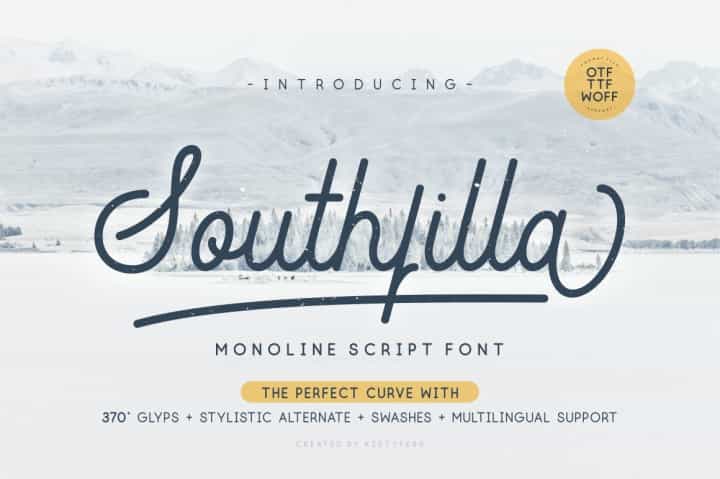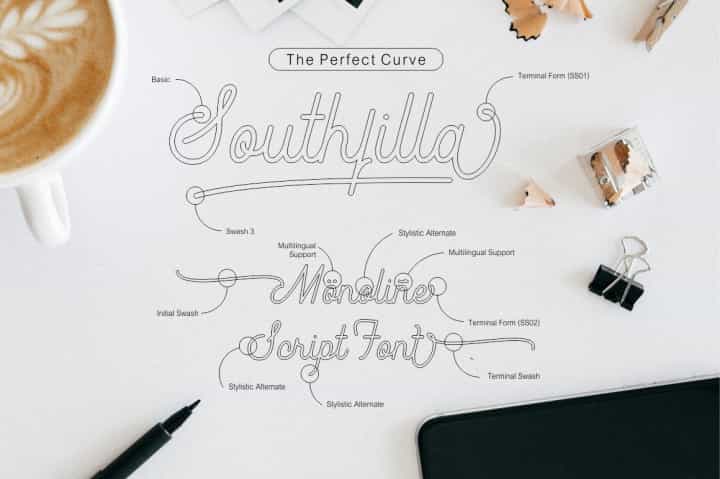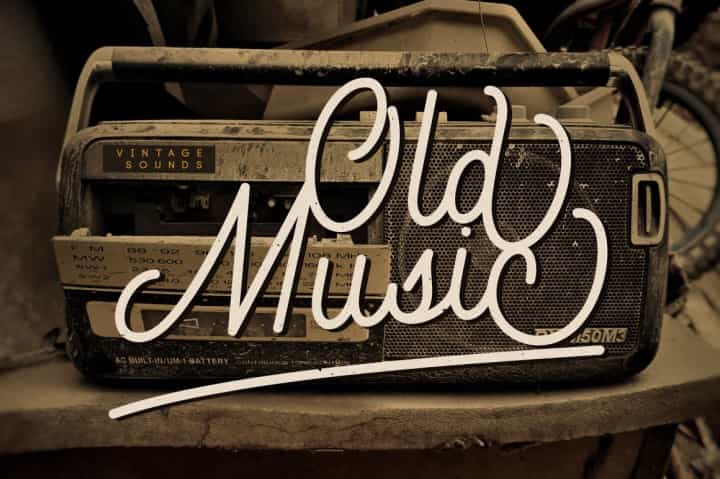
Southfilla — a new fresh handmade script font, you will love using this font for your design project. It is was created by AZetype86. Southfilla is the product of love and constant efforts that at last turn out to be elegant, simple, readable with The Perfect Curves which are catchy and easy to use. Southfilla Monoline Script Font is the best option for Vintage Stationary, Food and Drink Poster, Logotype, Wedding, Neon Style, Watermark Quotesand other design projects.